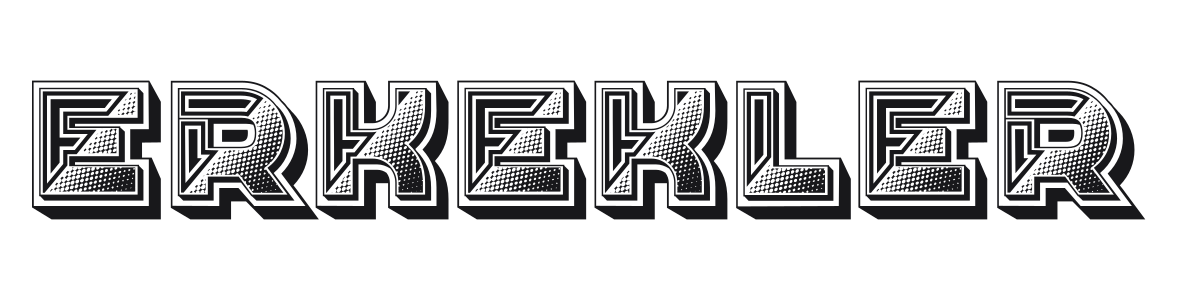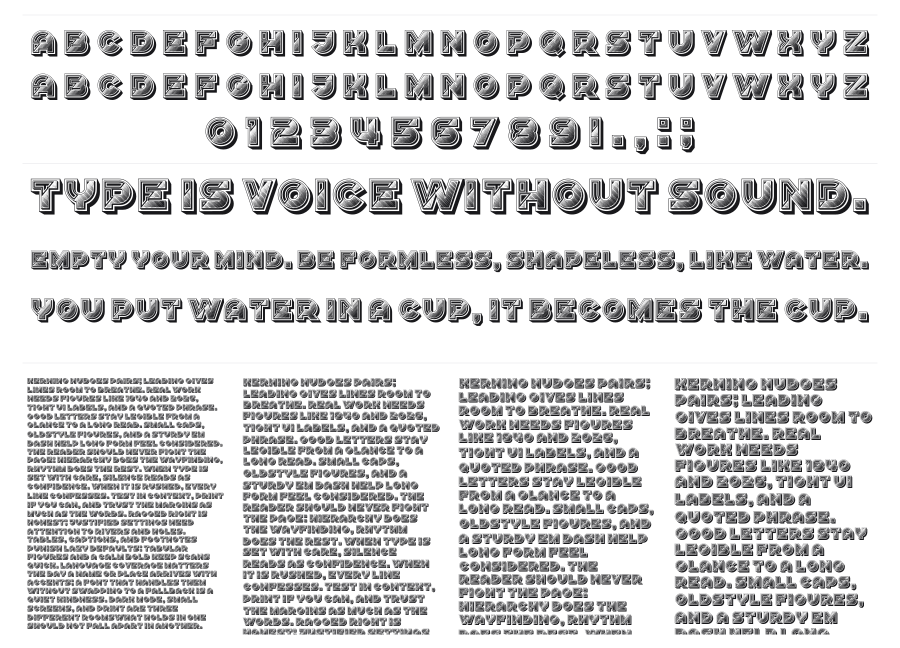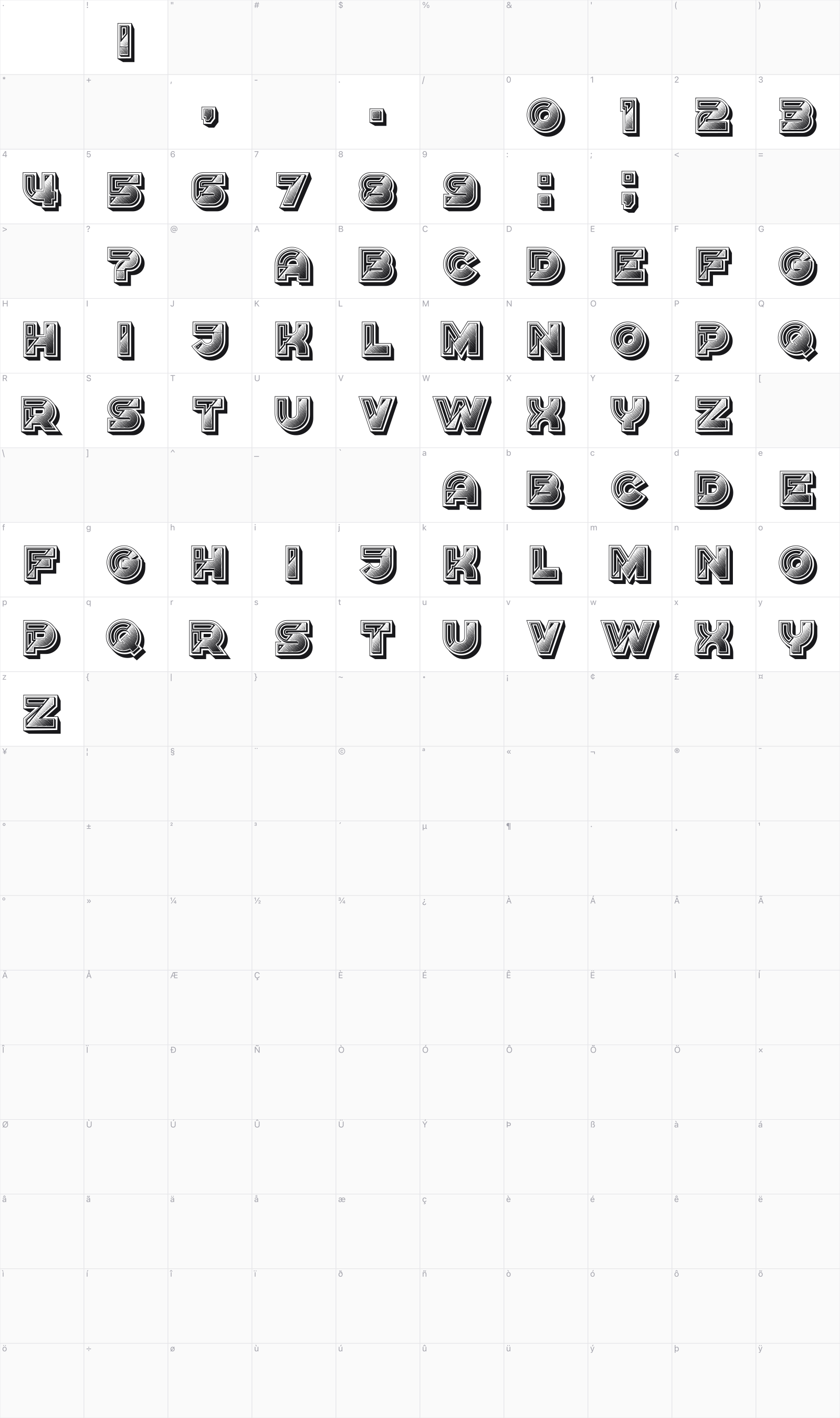
Erkekler
Erkekler is a bold, rounded retro display font packed with 1970s energy, featuring characters filled with crosshatch texture, thick outlines, and dramatic drop shadows. The layered treatment gives each letter a dimensional, almost engraved quality that commands attention at large sizes. A free font built for posters, album covers, and anywhere that needs unapologetic personality.